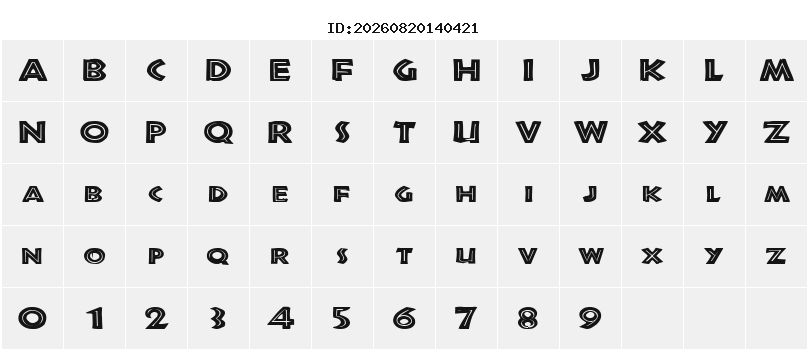
Shakazulu Preview
• Font Name: Shakazulu
• Full Font Name: Shakazulu Bold
About Shakazulu.ttf
Shakazulu.ttf is a modern, elegant sans-serif font designed for ultimate readability and visual harmony. Perfect for branding, headlines, web design, and print materials.